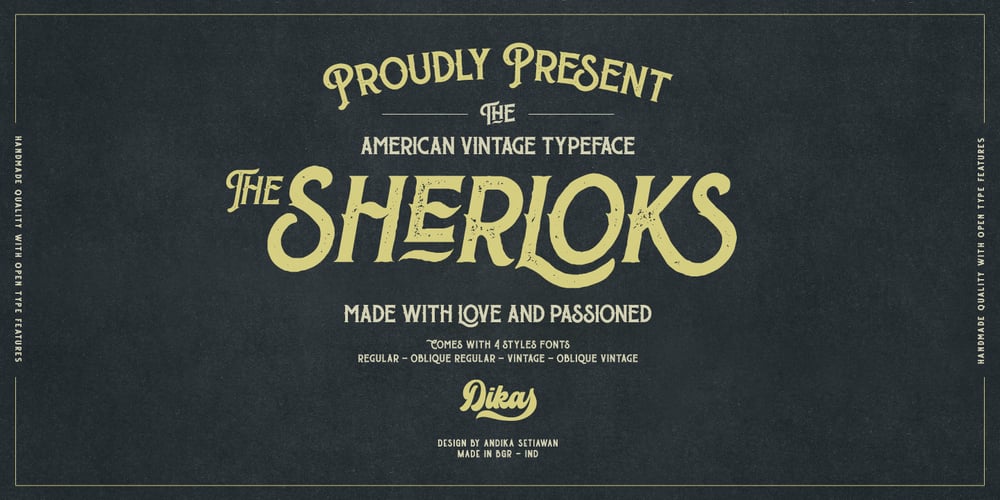
The Sherloks Font Family was designed by Andika Setiawan and published by Dikas Studio. The Sherloks contains 4 styles and family package options. Sherlock have 4 Style : Regular, Oblique Regular, Vintage and Oblique Vintage with hand drawn character and opentype feature its very helpfull to get Vintage design. Suitable and applicable to create vintage design, branding, logos, product packaging, invitation, quotes, t-shirt, label poster etc.Caps Only Fonts.